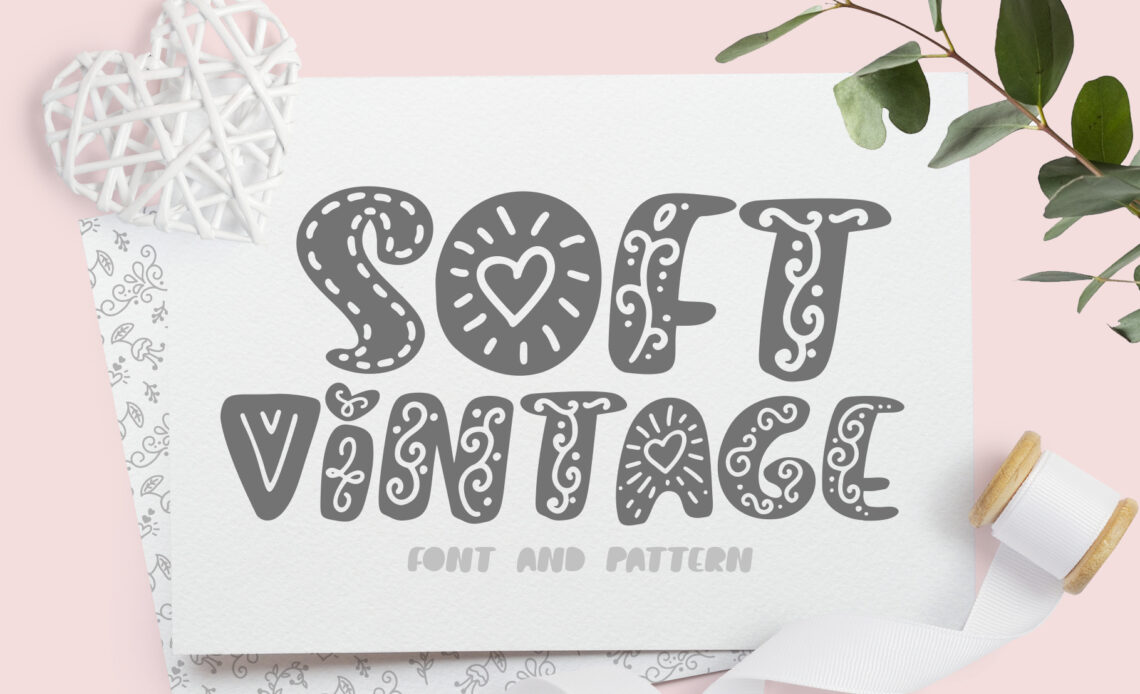
Introducing Soft Vintage, the breathtaking display font that will transform your creative visions into captivating masterpieces. Soft Vintage is a visual symphony, a harmonious blend of classic elegance and modern charm. This exquisite font exudes a timeless allure that will elevate your designs to new heights.
Unleash the power of Soft Vintage and let your imagination soar. Whether you're crafting trendy t-shirt designs, eye-catching logos, or captivating social media posts, Soft Vintage will add a touch of refinement and sophistication to every project. Its versatility knows no bounds, making it the perfect choice for designers, artists, and creative entrepreneurs alike.
With Soft Vintage by your side, you'll embark on a creative journey like never before. This font will ignite your passion and fuel your imagination, allowing you to create designs that resonate with your audience. Its intricate details and elegant swashes will add a touch of magic to your work, leaving a lasting impression on everyone who encounters it.
Immerse yourself in the world of Soft Vintage and discover a font that will redefine your creative possibilities. Its carefully crafted characters and smooth curves will bring warmth and charm to your designs, creating a visual experience that captivates and inspires. Soft Vintage is more than just a font; it's an invitation to embark on an artistic adventure where your creativity takes center stage.
Join the growing community of designers and artists who have embraced the allure of Soft Vintage and witnessed their creative dreams come to life. Let this font be your creative companion, guiding you towards design excellence and leaving an indelible mark on the world.